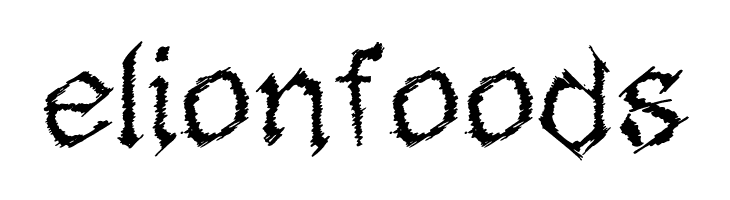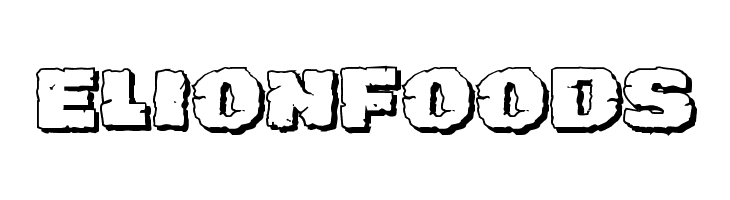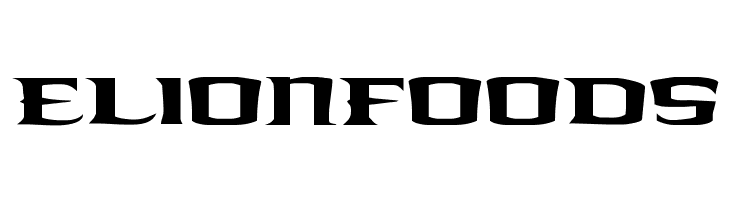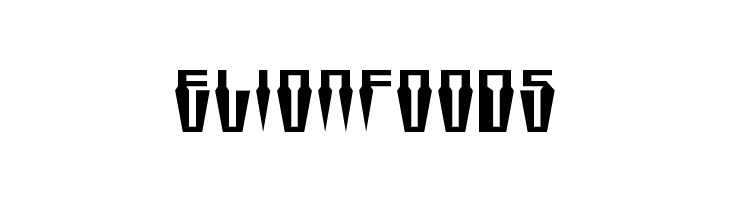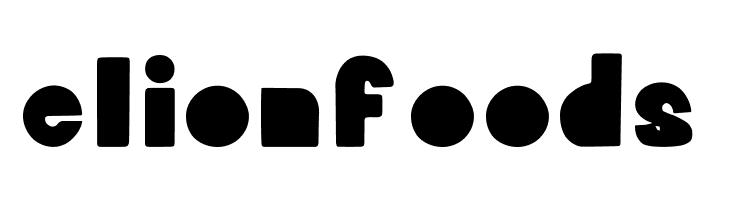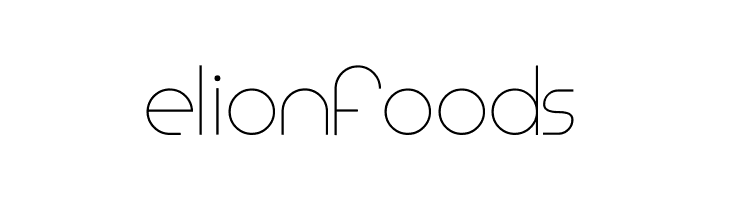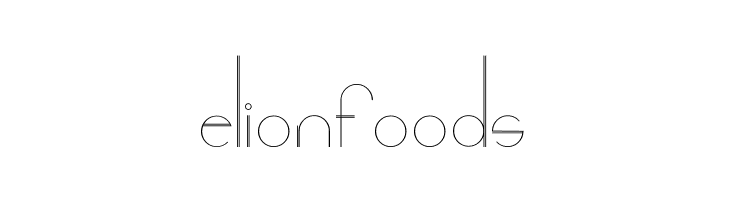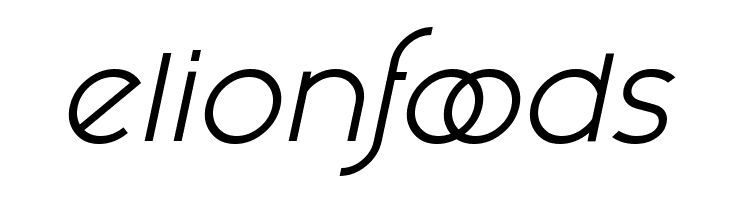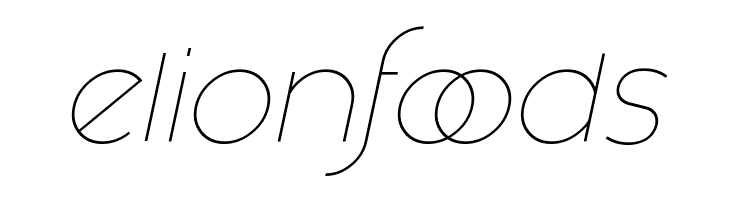
A rugged, jagged font with a bold, edgy appearance.
A playful font with characters enclosed in ovals, reminiscent of test answer sheets.
A bold, rugged font with a textured, stone-like appearance and shadowed outlines.
Bold, angular font with a staggered, aggressive style.
A bold, angular font with sharp, blade-like edges for a modern, edgy look.
A bold, geometric font with playful and quirky character shapes.
A sleek, minimalist font with thin lines and geometric structure.
A modern, minimalist font with thin, geometric strokes.
A sleek, modern italic font with clean lines and elegant curves.
A modern, light, and italicized font with sleek, thin strokes.